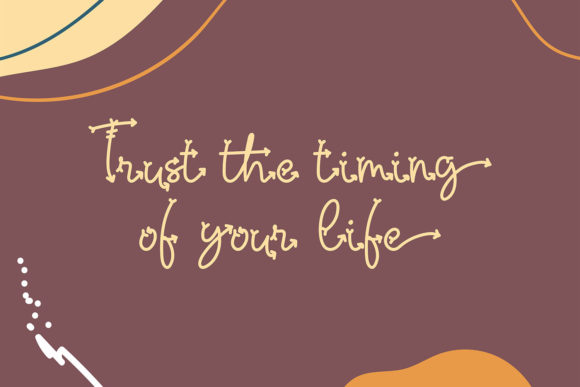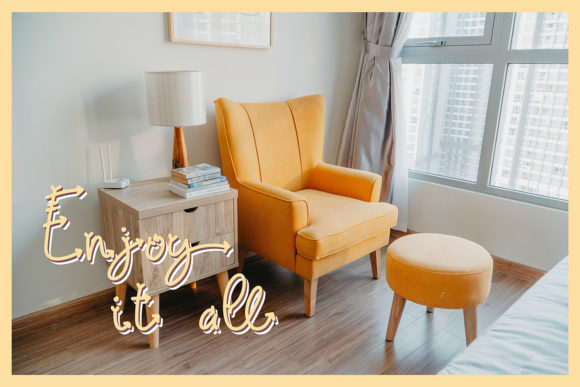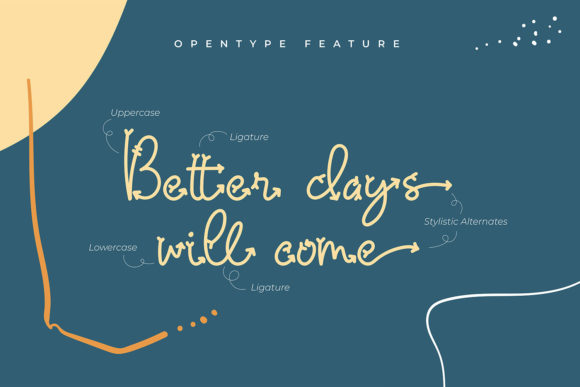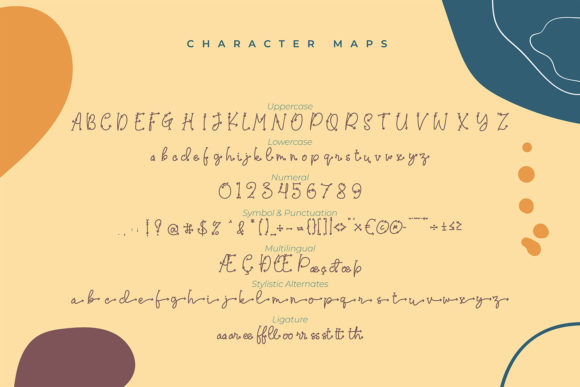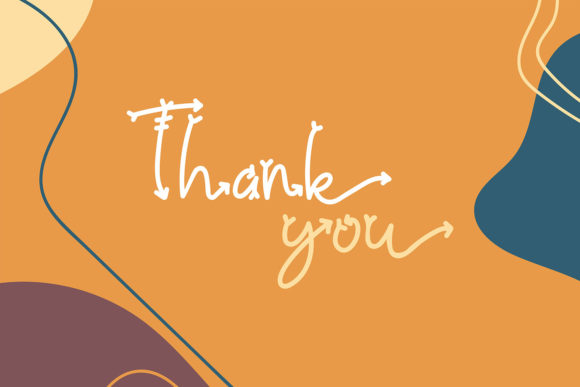
Introducing Arrow Lines Font: Add a Touch of Whimsy to Your Designs
Are you tired of using the same old fonts in your designs? Do you want to add a touch of personality and whimsy to your creations? Look no further than Arrow Lines Font, a fun and playful decorative font that’s perfect for making original and outstanding designs.
What is Arrow Lines Font?
Arrow Lines Font is a unique and eye-catching font that’s designed to add a dash of fun and playfulness to your designs. With its bold lines and arrow-shaped glyphs, this font is sure to make your designs stand out from the crowd. Whether you’re a designer, crafter, or DIY enthusiast, Arrow Lines Font is the perfect choice for anyone looking to add a touch of personality to their work.
Key Features of Arrow Lines Font
So what makes Arrow Lines Font so special? Here are just a few of its key features:
- PUA Encoded: Arrow Lines Font is PUA (Private Use Area) encoded, which means that you can access all of the glyphs and swashes with ease. This makes it easy to use the font in your designs, even if you’re not a professional font expert.
- Fun and Playful: Arrow Lines Font is a fun and playful font that’s perfect for designs that need a touch of personality. Whether you’re creating a logo, a poster, or a social media graphic, this font is sure to add a dash of whimsy to your design.
- Decorative: Arrow Lines Font is a decorative font that’s designed to add visual interest to your designs. With its bold lines and arrow-shaped glyphs, this font is sure to make your designs stand out from the crowd.
Uses for Arrow Lines Font
So what can you use Arrow Lines Font for? The possibilities are endless! Here are just a few ideas to get you started:
- Logos and Branding: Arrow Lines Font is a great choice for logos and branding, especially if you want to add a touch of personality to your brand.
- Posters and Flyers: This font is perfect for posters and flyers, especially if you’re promoting a fun or playful event.
- Social Media Graphics: Arrow Lines Font is a great choice for social media graphics, especially if you want to add a touch of personality to your posts.
- Crafting and DIY Projects: If you’re a crafter or DIY enthusiast, Arrow Lines Font is a great choice for your projects. You can use it to add a touch of personality to your signs, banners, and other DIY projects.
Tips for Using Arrow Lines Font
Here are a few tips for using Arrow Lines Font in your designs:
- Use it sparingly: While Arrow Lines Font is a fun and playful font, it can be overwhelming if used too much. Use it sparingly to add a touch of personality to your designs.
- Pair it with other fonts: Arrow Lines Font pairs well with other fonts, especially sans-serif fonts. Try pairing it with a clean and simple font to create a visually interesting design.
- Experiment with colors: Arrow Lines Font looks great in a variety of colors, so don’t be afraid to experiment. Try using it in bright and bold colors to add a touch of whimsy to your designs.
Arrow Lines Font is a fun and playful decorative font that’s perfect for making original and outstanding designs. With its bold lines and arrow-shaped glyphs, this font is sure to add a touch of personality to your designs. Whether you’re a designer, crafter, or DIY enthusiast, Arrow Lines Font is a great choice for anyone looking to add a dash of whimsy to their work. So why not give it a try and see what amazing designs you can create?